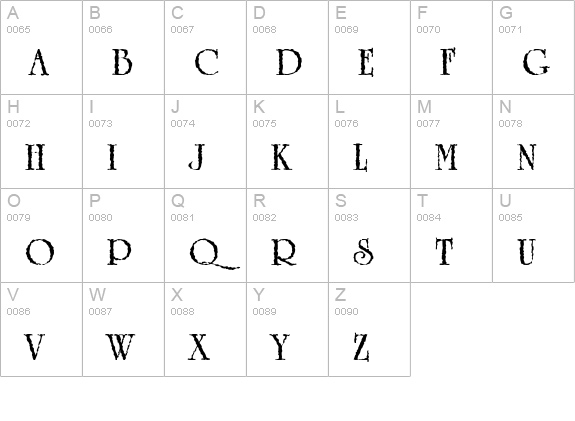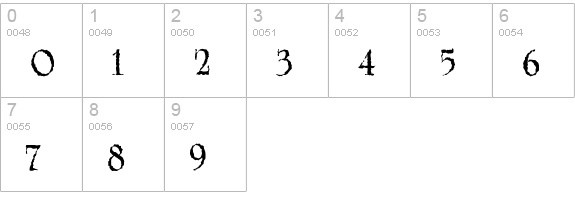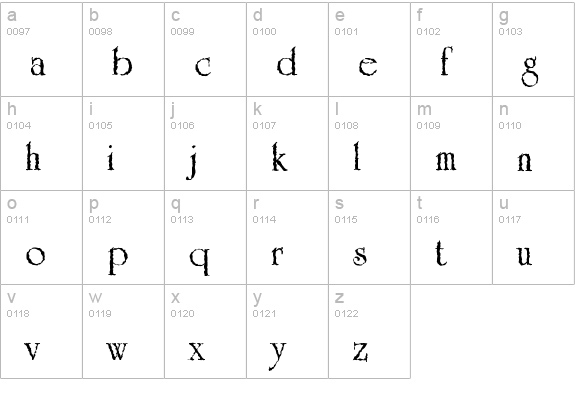
Grunge Caltek Bold is a strong, high-contrast variant in the Grunge typeface family \xE2\x80\x94 well suited to headlines, attention-grabbing titles, and strong calls-to-action.
Introducing Grunge Caltek Bold font, a rebellious and gritty typeface that exudes raw energy and edgy appeal. This bold and rugged font is perfect for adding a touch of urban flair to your designs. With its distressed and weathered appearance, Grunge Caltek Bold font captures the essence of the grunge aesthetic, making it ideal for projects that require a rough and unconventional look. What sets Grunge Caltek Bold font apart is not only its unique design but also its accessibility - it is available for free download at FontsMarket.com. This means that you can easily incorporate this striking font into your projects without any cost. Whether you're working on posters, album covers, or branding materials, Grunge Caltek Bold font will add a touch of authenticity and character to your designs. Embrace the rebellious spirit of grunge with Grunge Caltek Bold font today!